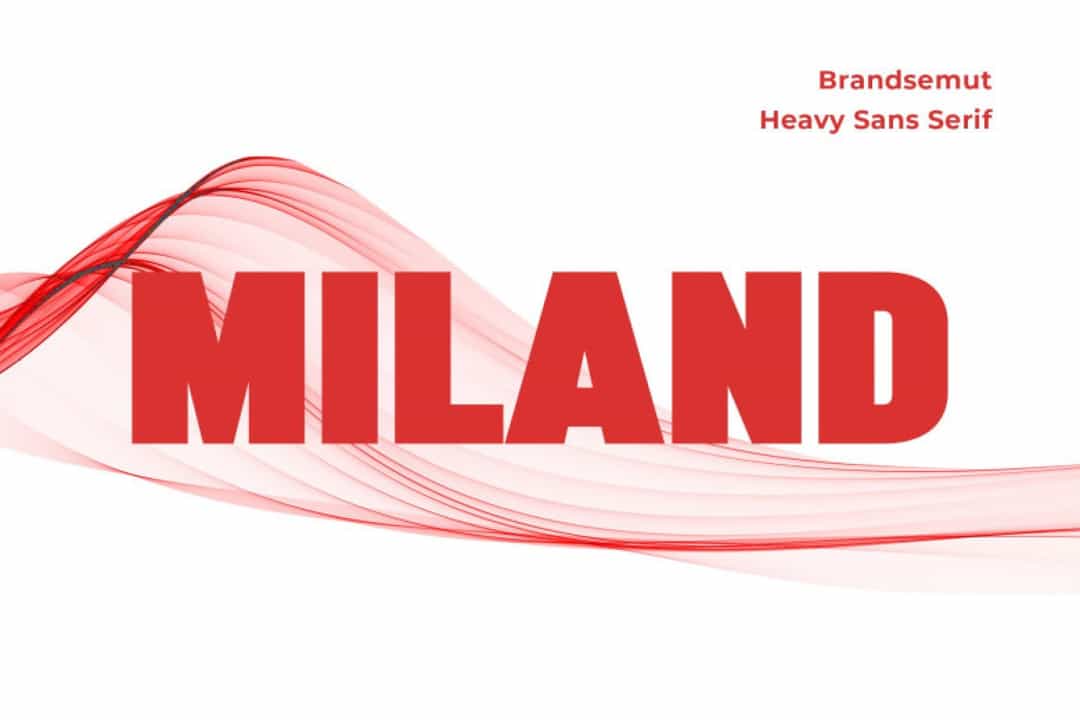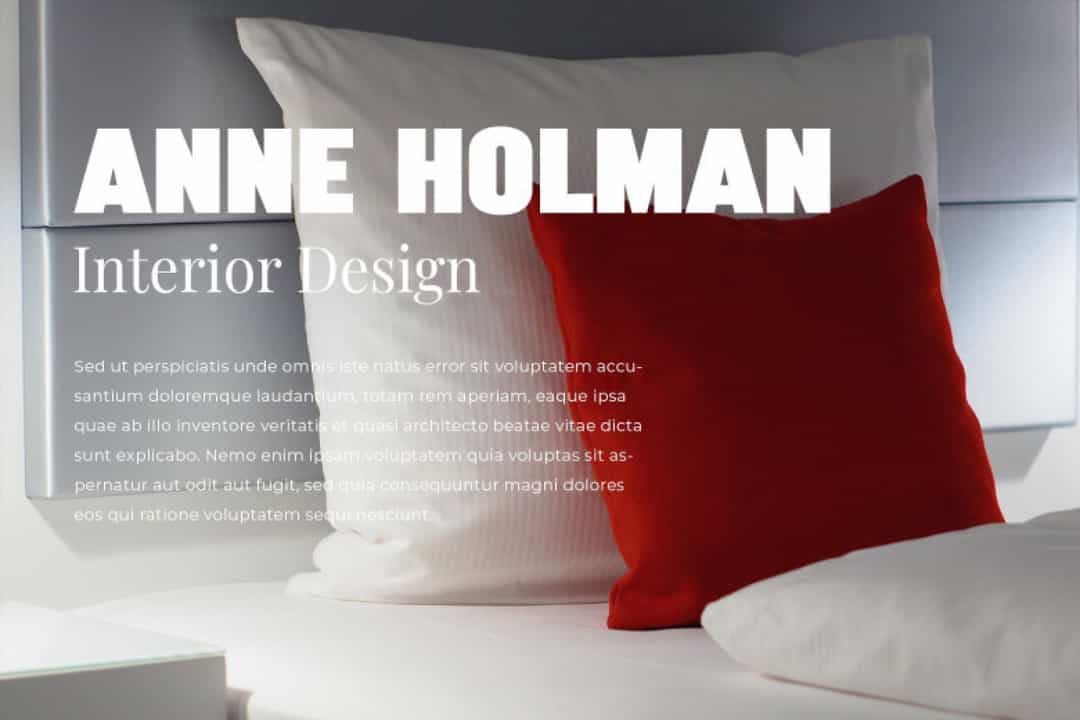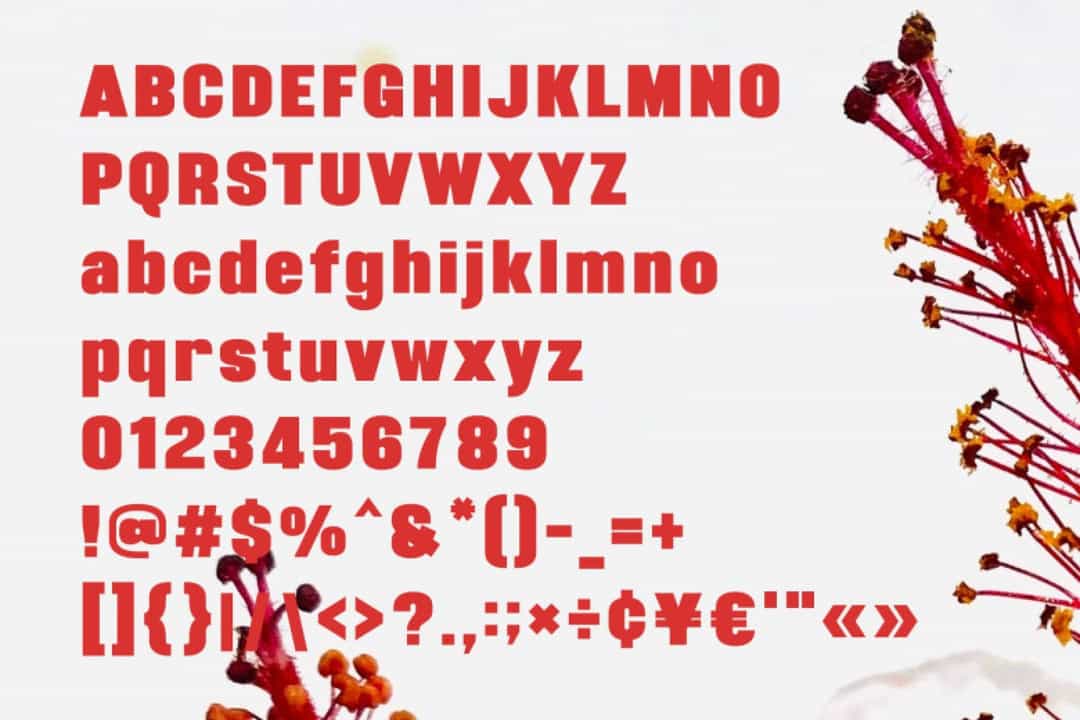
Miland is an eye-catching yet versatile Sans serif font that is suitable for many projects, including logos, headings, magazines, branding materials, packaging and invitations. Featuring sleek edges and graceful curves that give any project an air of elegance, Miland makes an impressive statement in any application it’s used in.